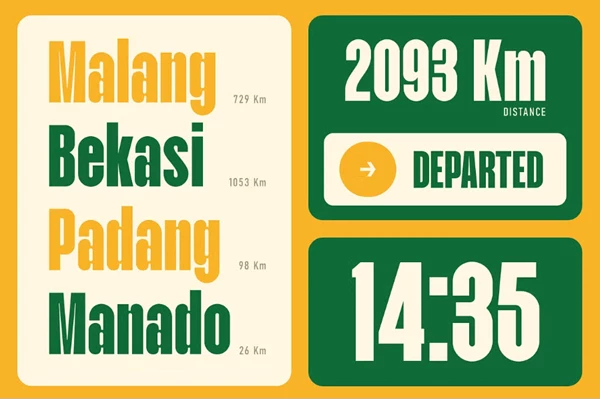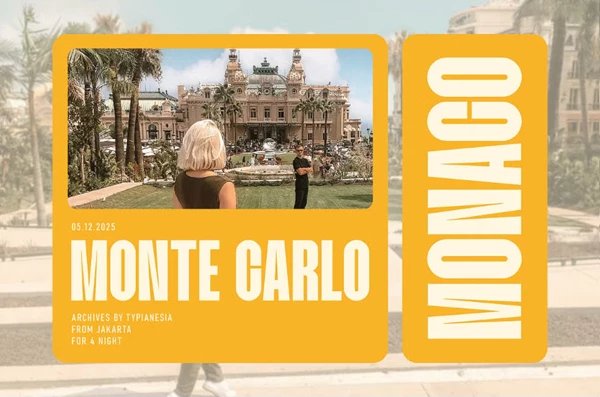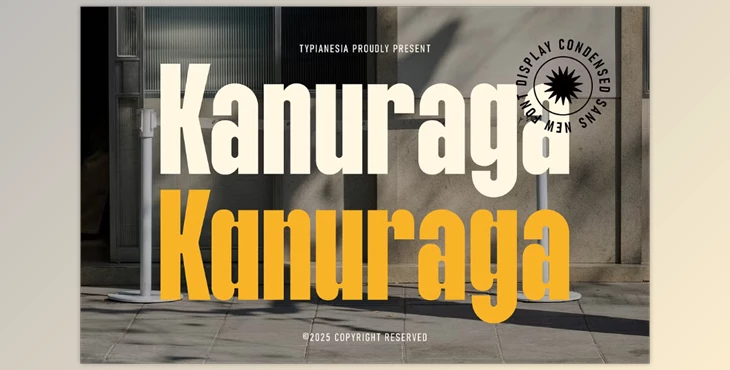
Kanuraga - Condensed Sans Font:
Bold and modern, Kanuraga is a contemporary sans display font. Its compact form cleans borders and works without taking too much space, which can offer a stronger visual impact on posters, headlines, logos, branding, advertisements, editorial layouts, packaging, and sports.
Urban-style design projects will also benefit from this font, which was created with modernity and professionalism in mind. Kanuraga is a great sans display font with clear letters that are easy to read as well as space-saving, which many graphic designers and advertising agencies, as well as other creative professionals, look for when aiming to create modern, eye-catching typography.